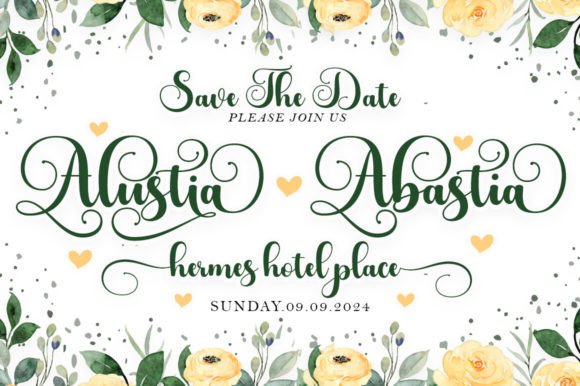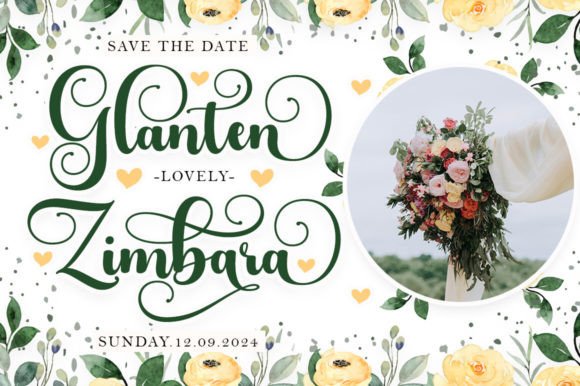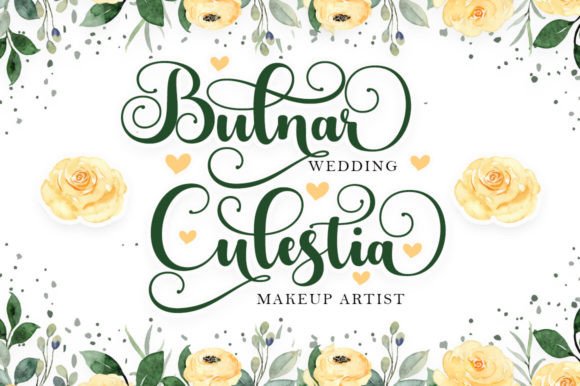
Alustia Font
Alustia is a sweet and friendly Script handwritten font. Fresh and sleek, this font is ideal for writing wedding invitations, cards, or any other design that might need a fun touch!PUA encoded which means you can access all glyphs and swashes easily.